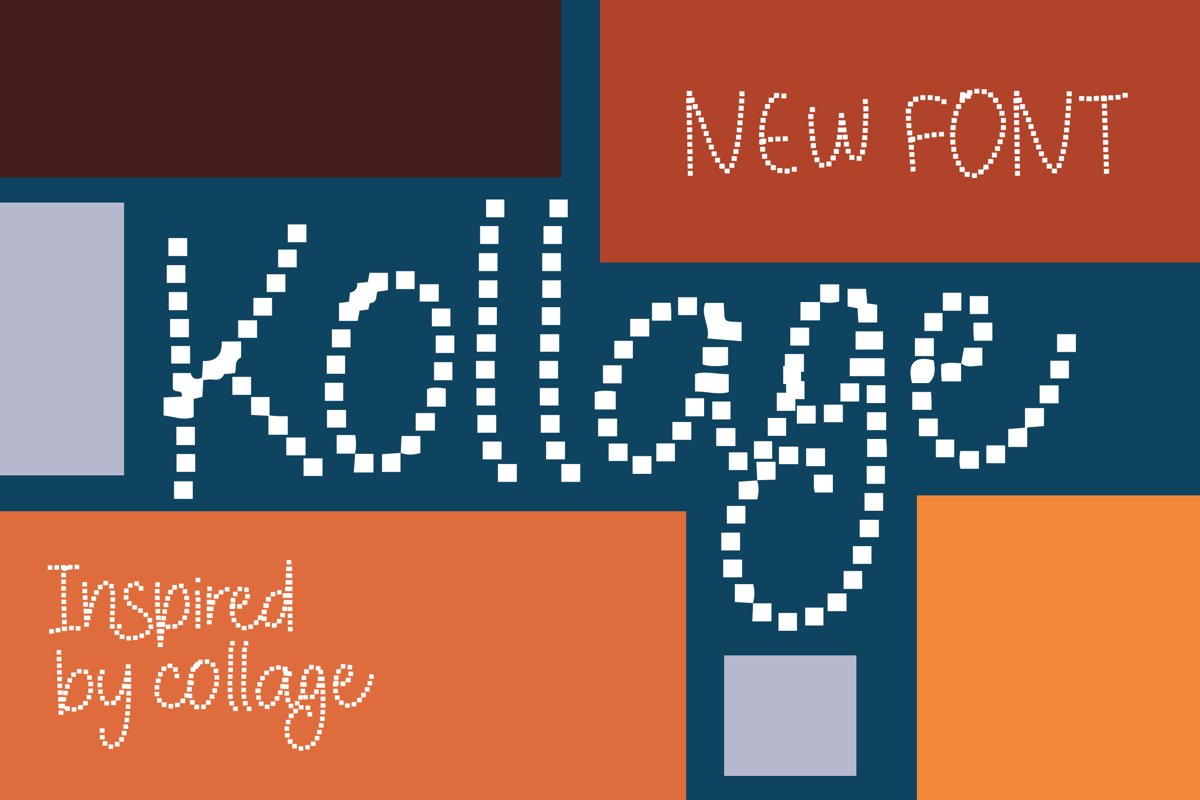
Kollage - Pixel Fonts that contain lowercase, uppercase, symbol, and also support multi language. There’s a lot ligatures in this font. This Font also comes with ligatures, alternates and many more. this font suitable for fashion, branding, catalog and other design what you want.